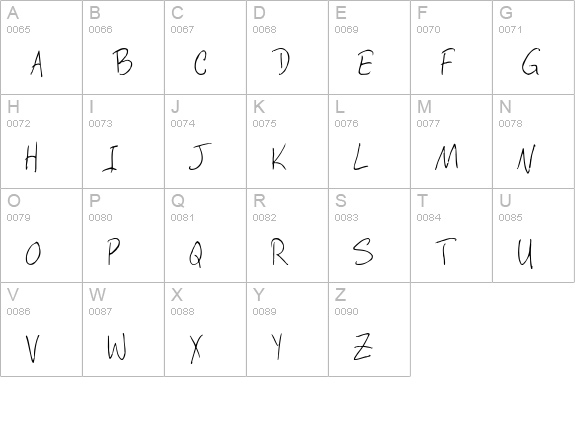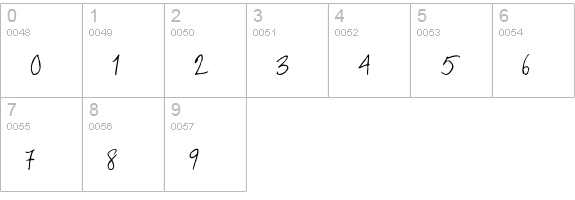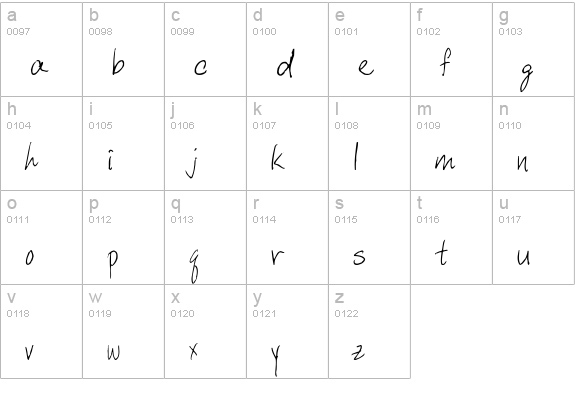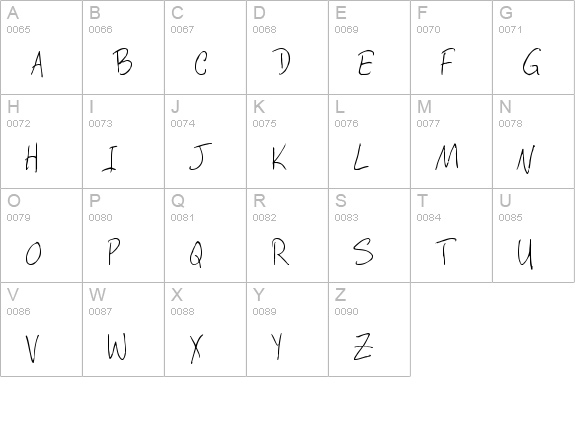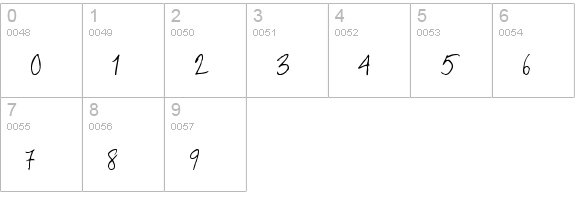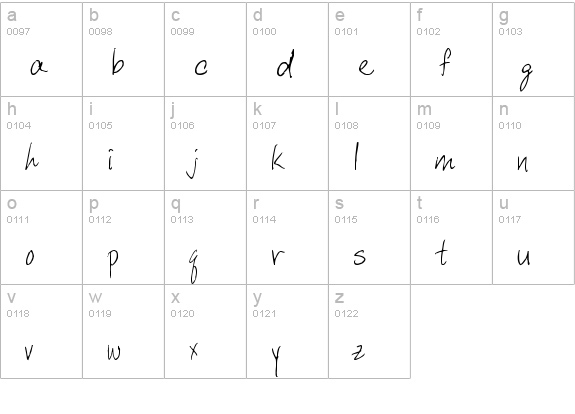
DavysCrappyWrit Font Details
Introducing DavysCrappyWrit font, a quirky and unique typeface that adds a touch of whimsy to any project. This font features irregular lines and playful letterforms, giving your designs a handmade and artisanal feel. Despite its name, DavysCrappyWrit font exudes charm and character, making it perfect for creative projects that call for a lighthearted touch. Best of all, DavysCrappyWrit font is available for free download at FontsMarket.com. Whether you're working on a personal art project, designing a fun poster, or adding a fun twist to your social media posts, DavysCrappyWrit font is a versatile choice that is sure to stand out. Embrace the imperfect and embrace the charm of DavysCrappyWrit font today!